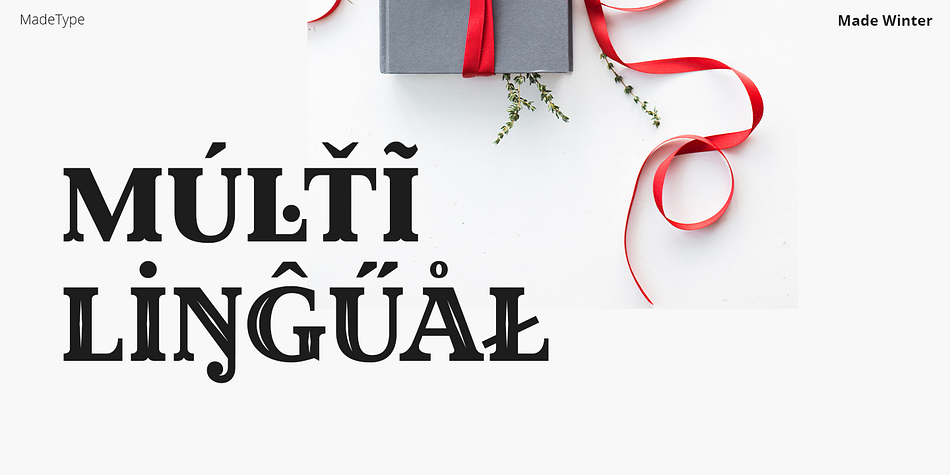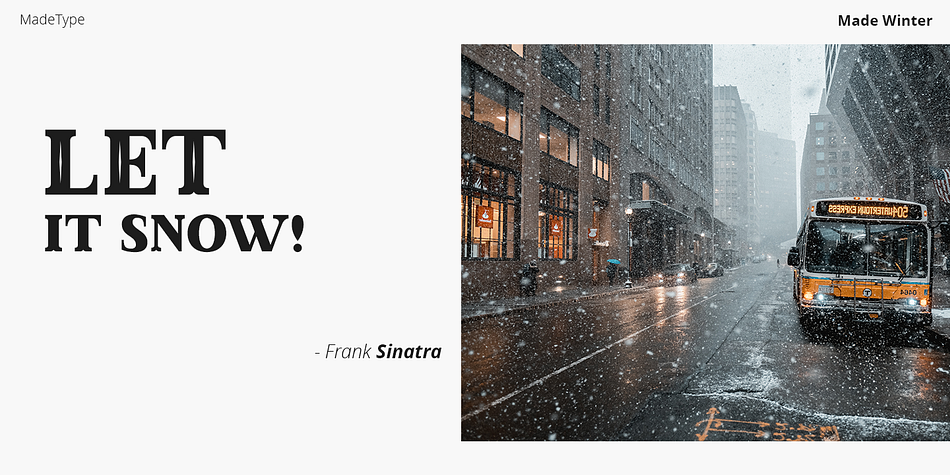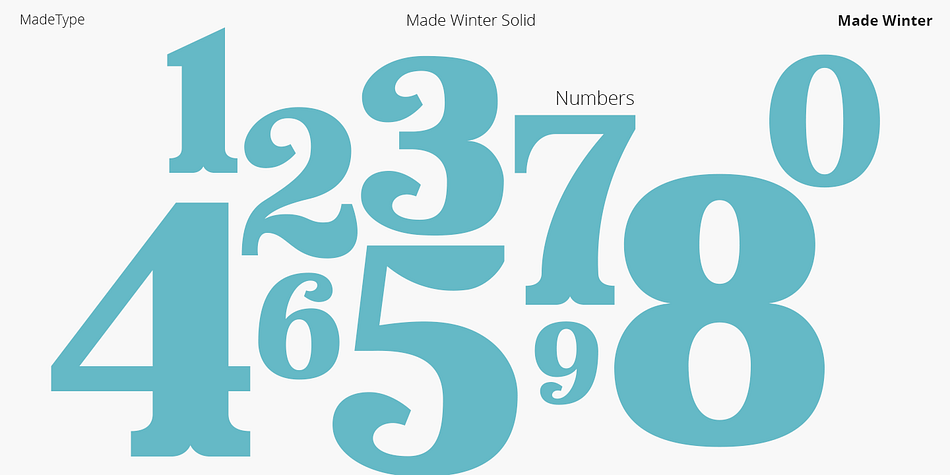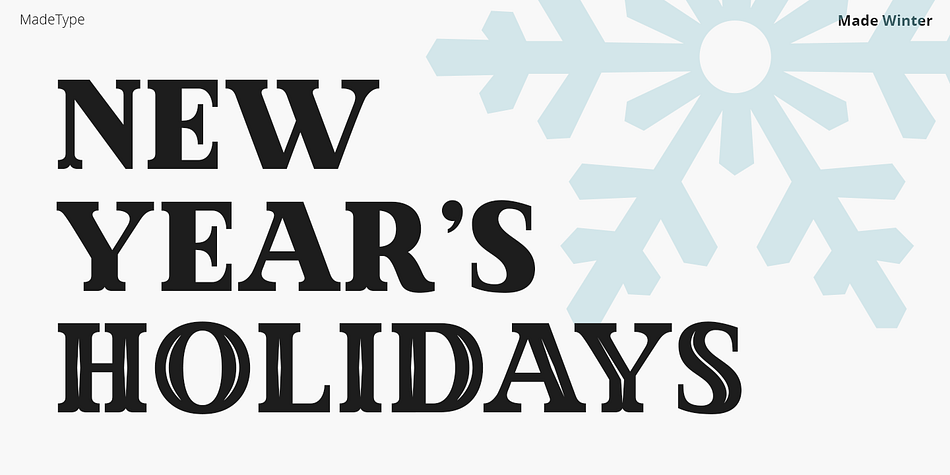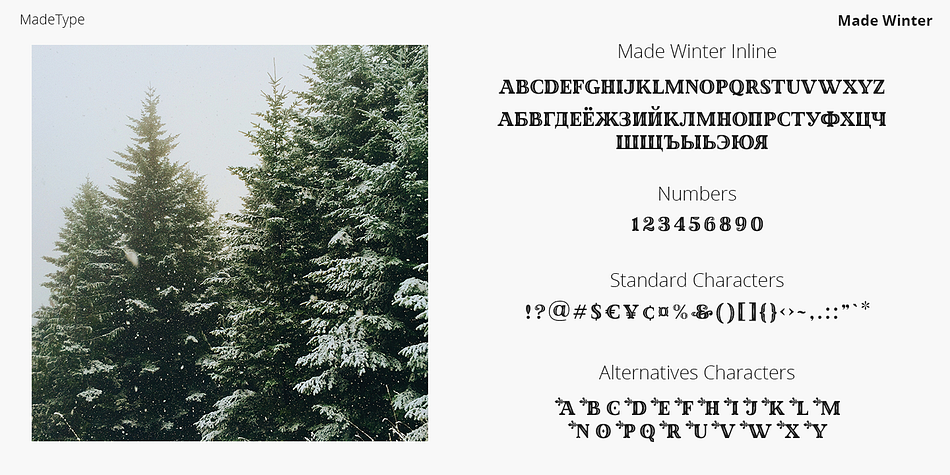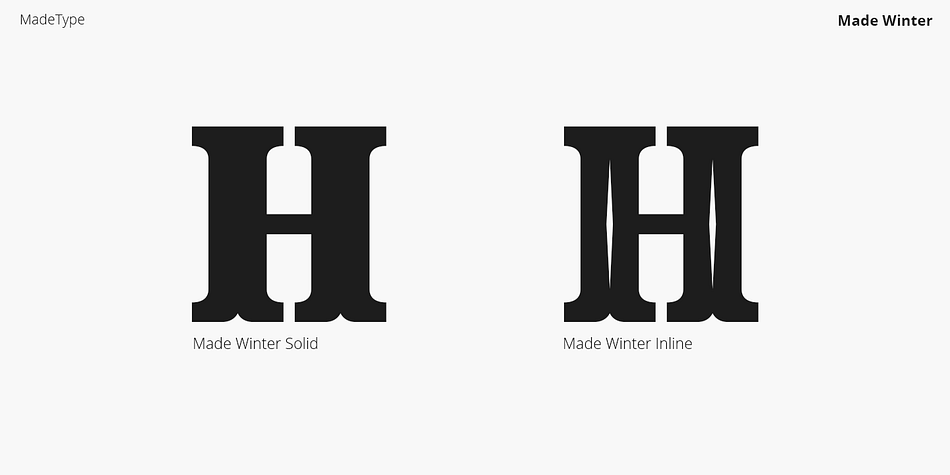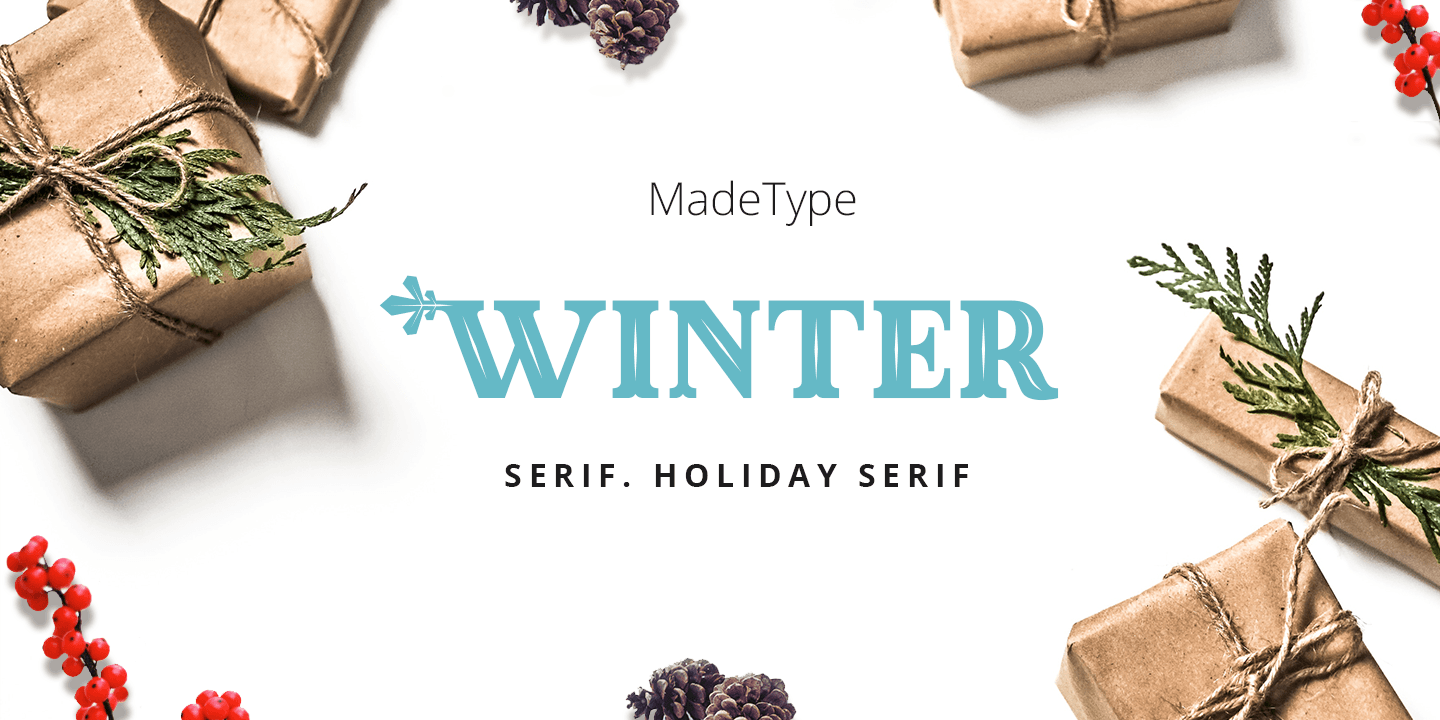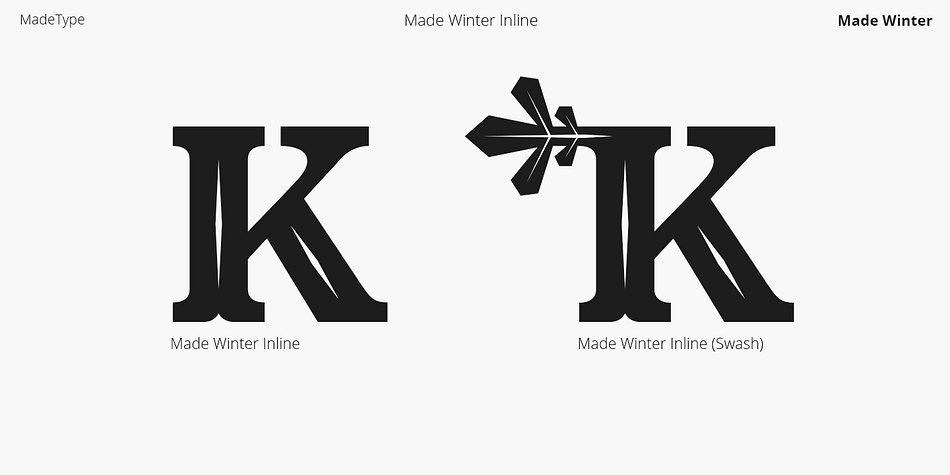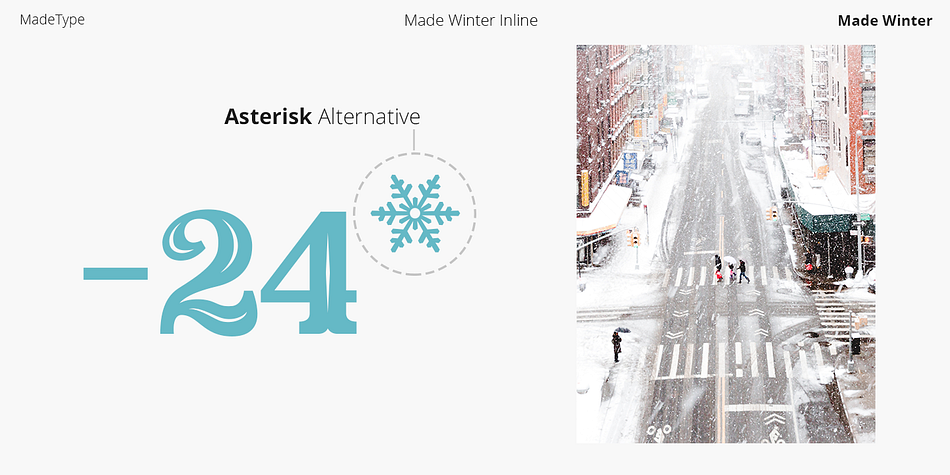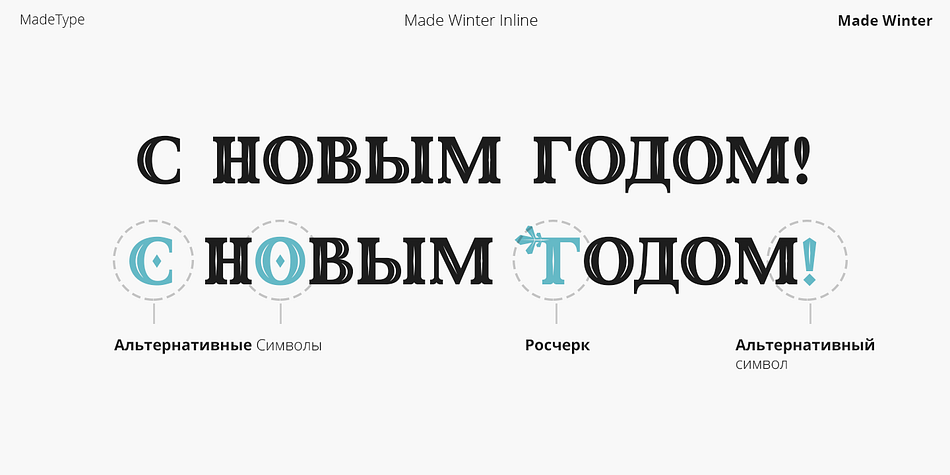
Designed by Maxim Schepin, MADE Winter is a serif, western and display serif font family. This typeface has two styles and was published by MadeType.
Made Winter is the New Year’s font. Inspired by the holiday mood and created for your future wonderful works.
Well suited for headlines, short texts, postcards, calendars, magazines, books and logos.